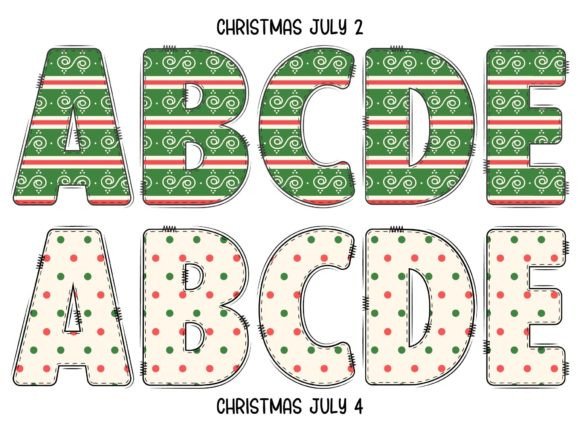
Christmas July Font
Christmas July is a cute and festive color font. It will look amazing on all your Christmas-themed designs, shirts, crafts, and cards and will instantly enhance your projects!